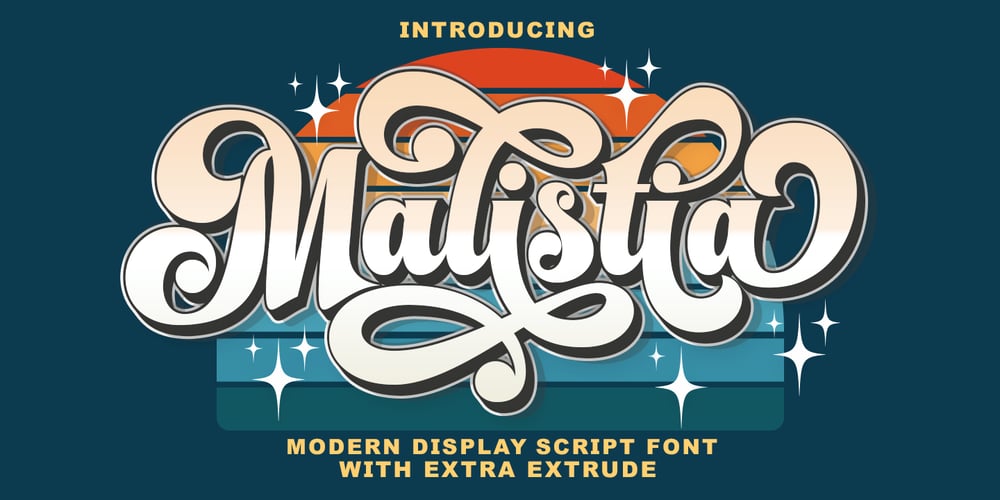
Malistia Font Family was designed by Ikhsan Maulana and published by IM Studio. Malistia contains 2 styles and family package options. Give your typography designs a touch of retro style with Malistia!Introducing the trending font The Malistia, a bold retro script that will take you back to the 70s. comes with the Extrude version. So you don’t need extra effort to create the extrude effect. Features include: Alternative Style, Swash,Collection of styles and multilingual support. You can choose alternative replacements with various Glyph variants. Very suitable for logos, t-shirts, posters, branding, etc.